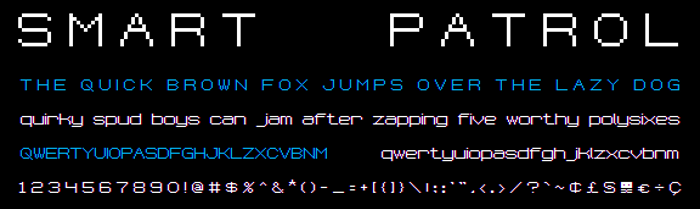
Smart Patrol NBP Font
Wide text for headings on small displays. Inspired by Microgramma and Bank Gothic.
Use with Shylock for maximum effectiveness!
-Added loads more characters!